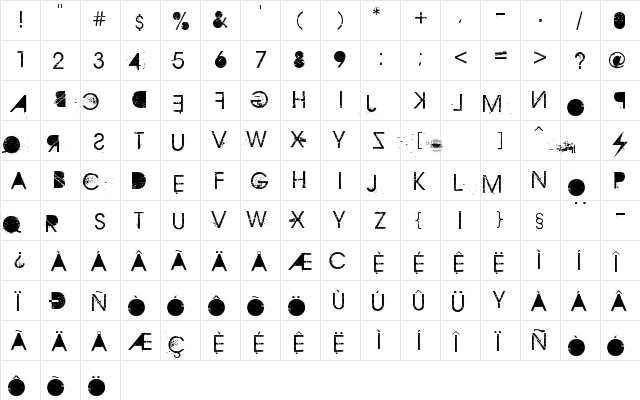
Aristotle Punk Aristotle Punk
| Designer | Andrew2 Hart |
Design Context for Aristotle Punk Typeface
Aristotle Punk is a composed and adaptable typeface that performs quietly and consistently across a wide range of design contexts.
Pro Tip: Use Aristotle Punk in both headline and body roles to test its range before committing to a single application.